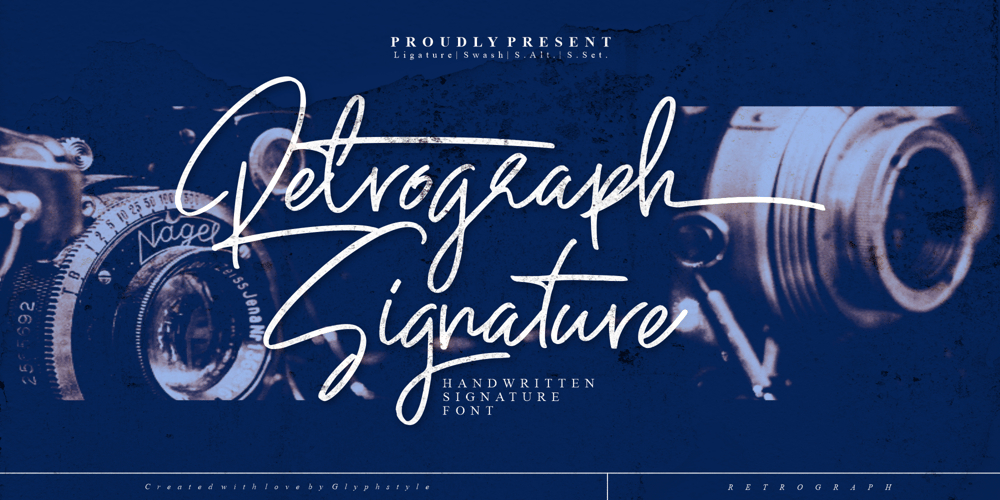
Retrograph Font Family was designed by Dimas Ardhi and published by GlyphStyle. Retrograph contains 1 styles and family package options. Retrograph is a handwritten font that looks neat and clear. Consistent lines make this font neat and beautiful. Font feature Uppercase, Lowercase, Numerals & Punctuations, Stylistic Alt, Stylistic Set, Swash Ligature, Multilanguage